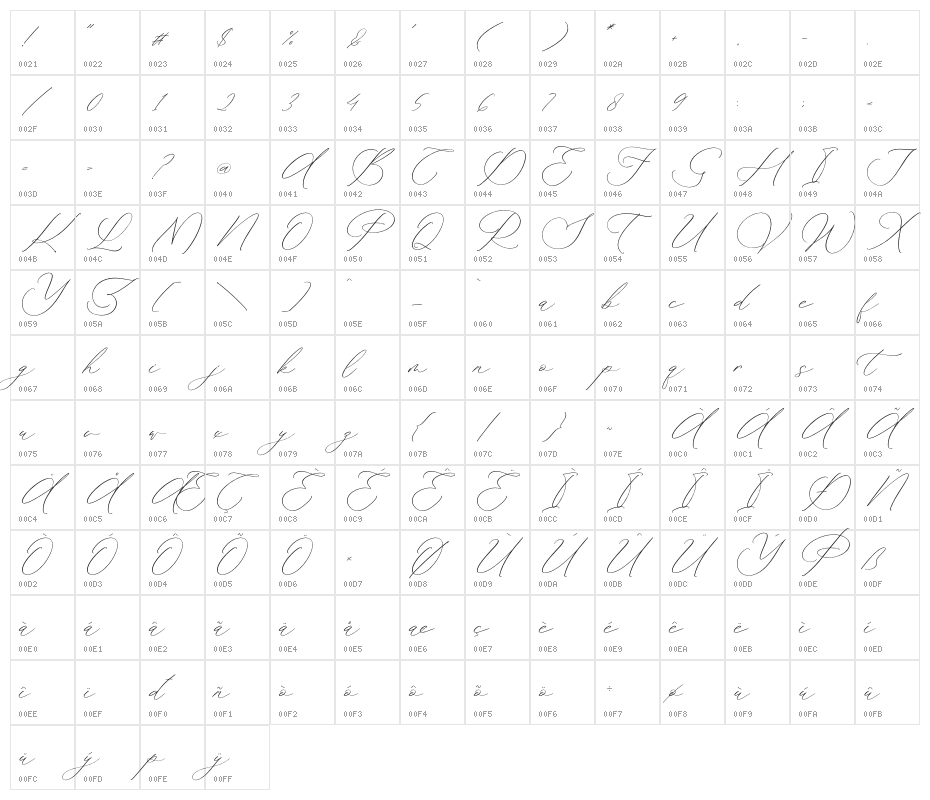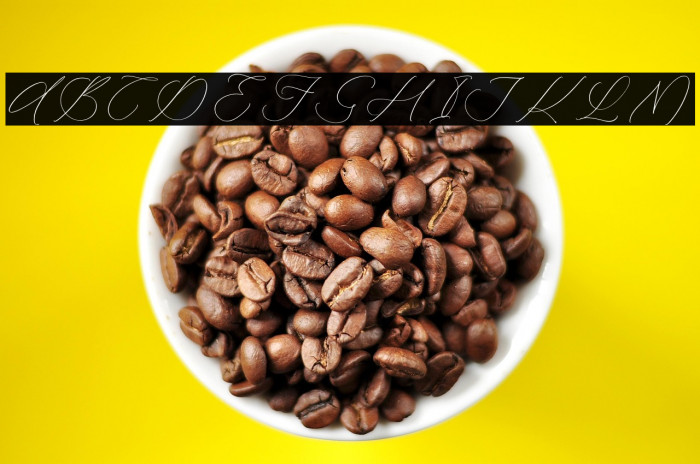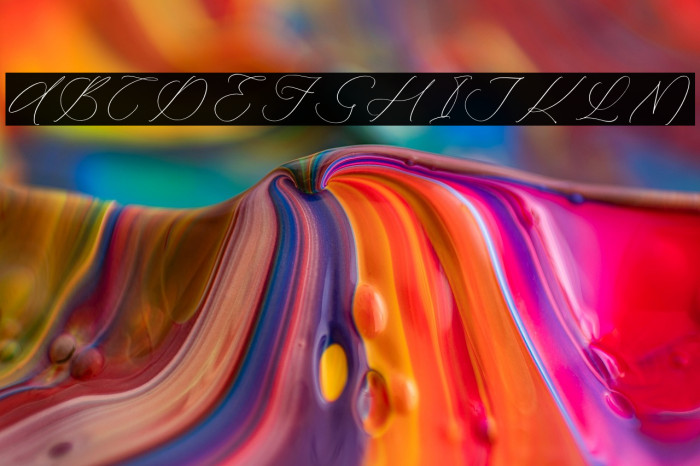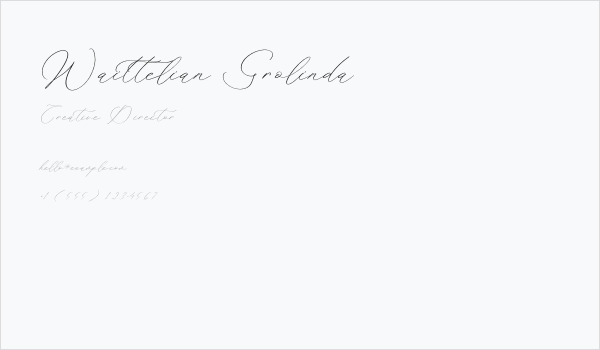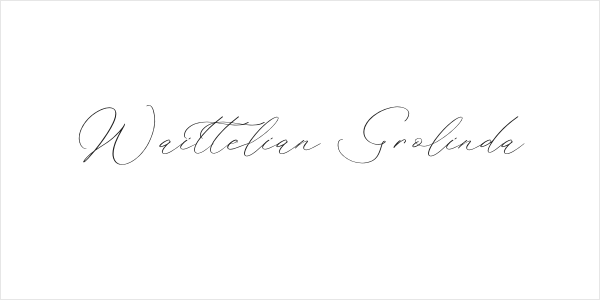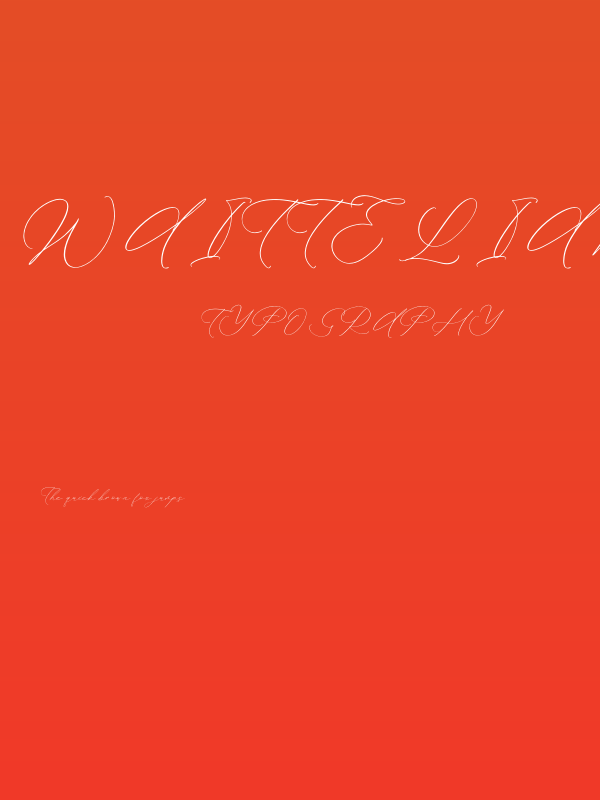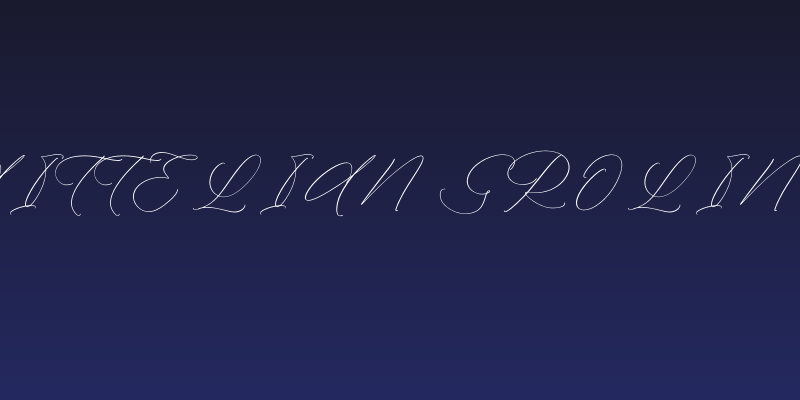
Waittelian Grolinda Font
Waittelian Grolinda Description
This font exudes elegance and sophistication with its flowing, cursive style. The letters are intricately connected, creating a seamless and graceful appearance. The strokes are delicate and thin, providing a sense of refinement and class. Each character is carefully crafted, showcasing a high level of detail and artistry. The font maintains a consistent slant, enhancing its fluidity and movement. Its overall aesthetic is reminiscent of traditional calligraphy, making it suitable for formal and decorative applications.
| Proposed Projects | Ideal for wedding invitations, elegant branding, formal event programs, and decorative signage. |